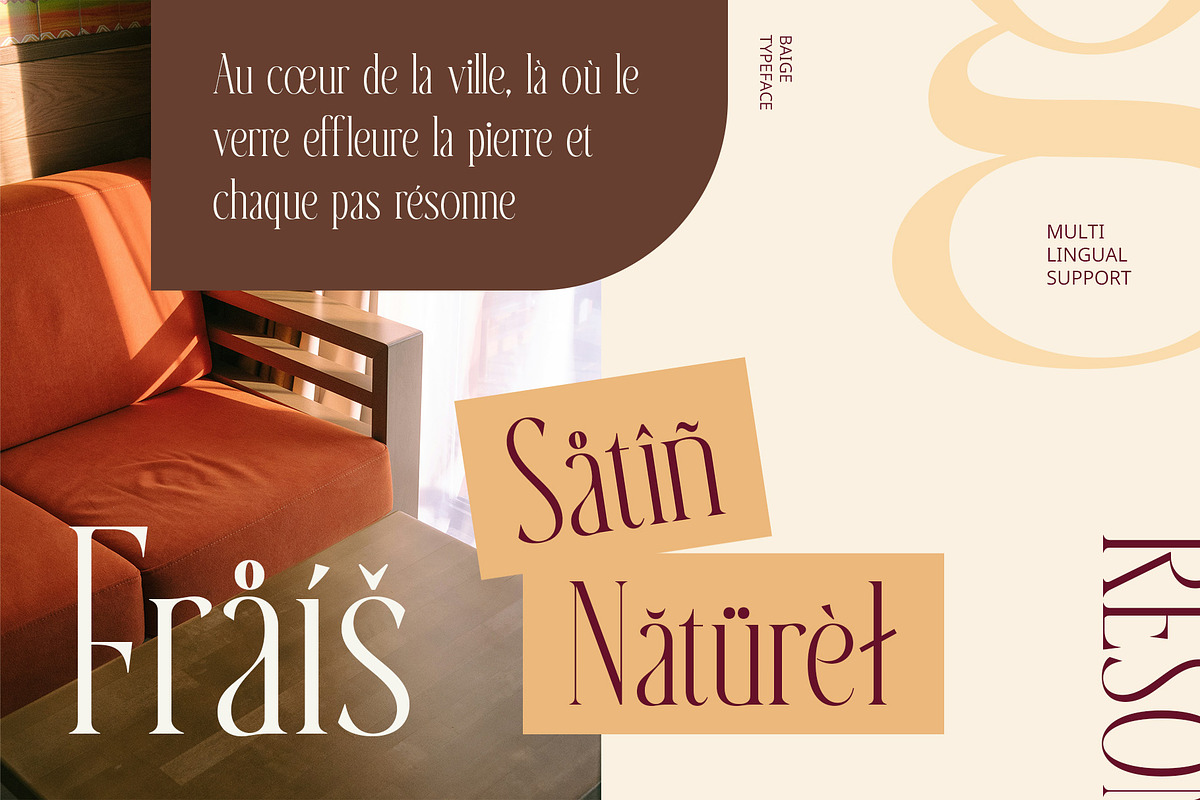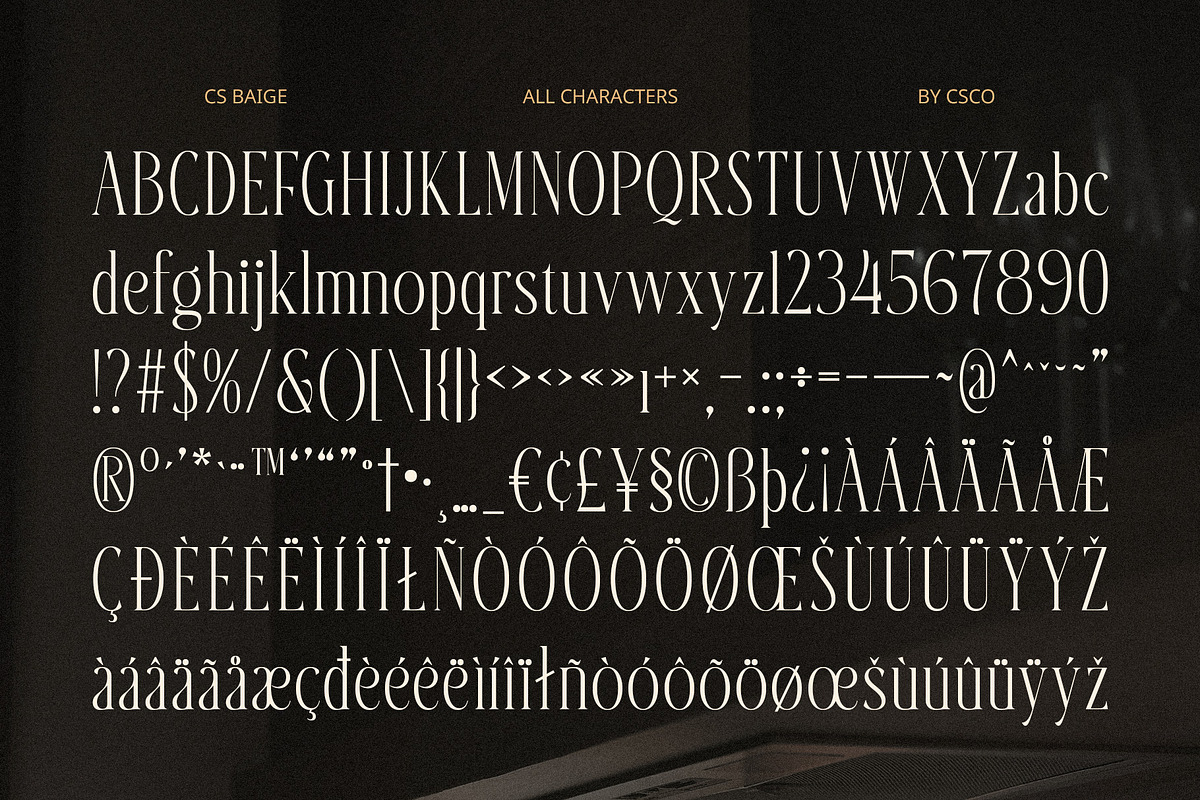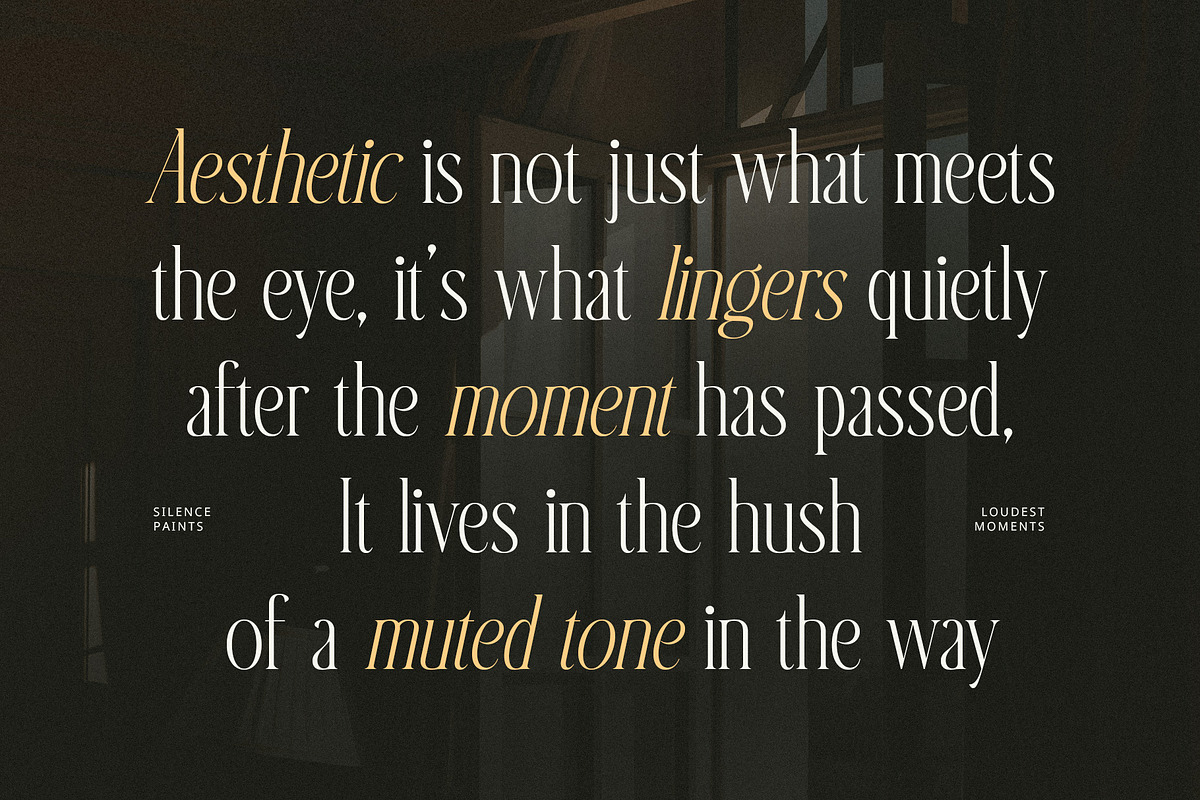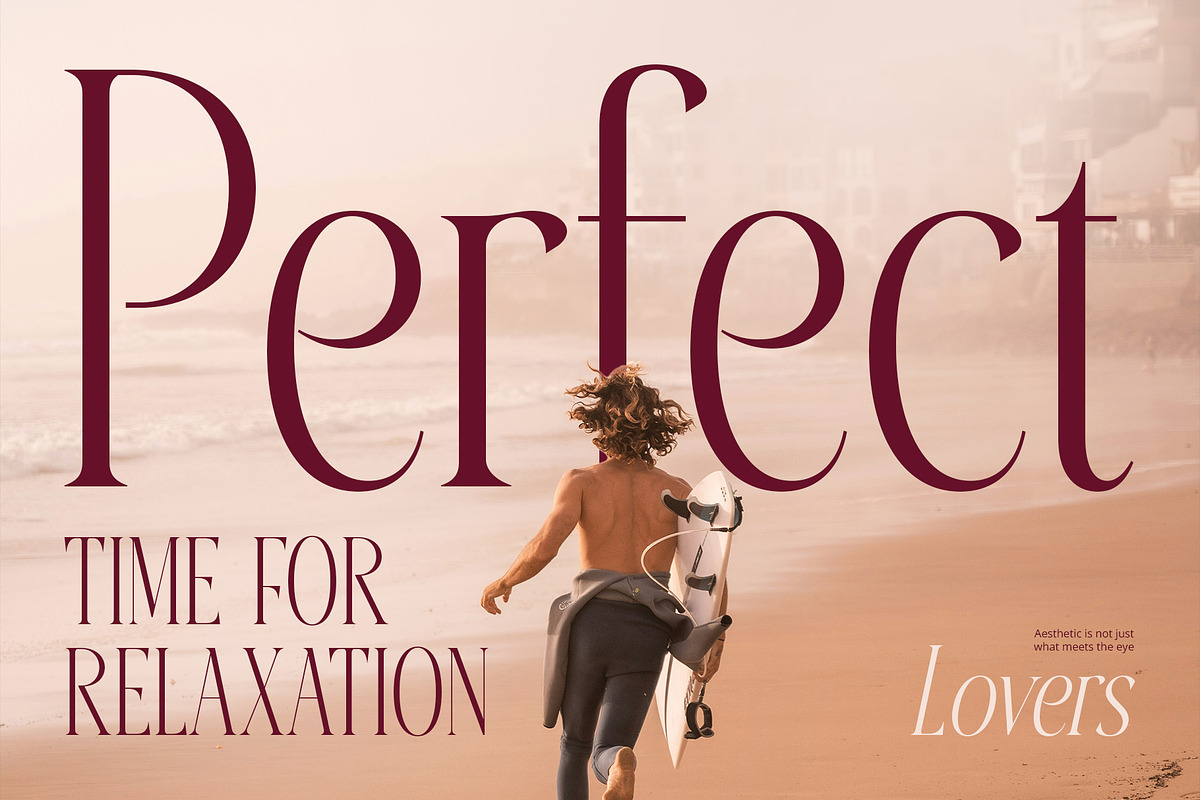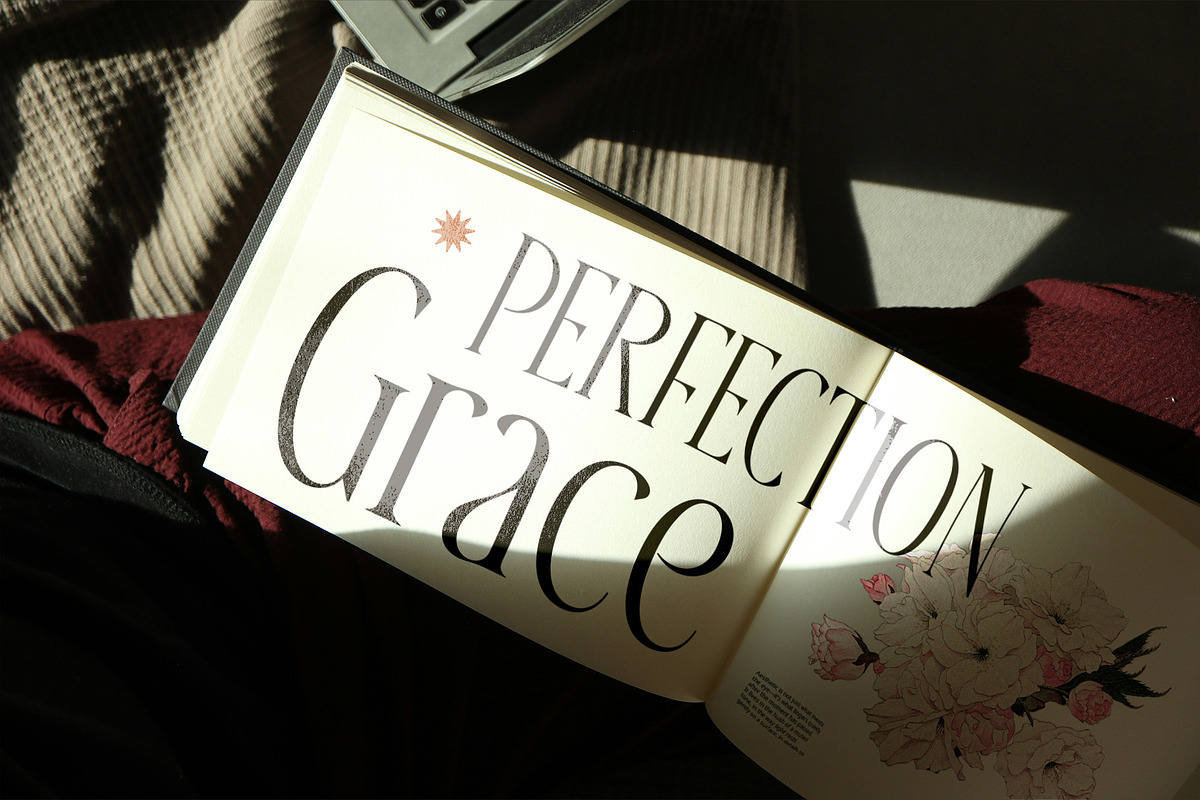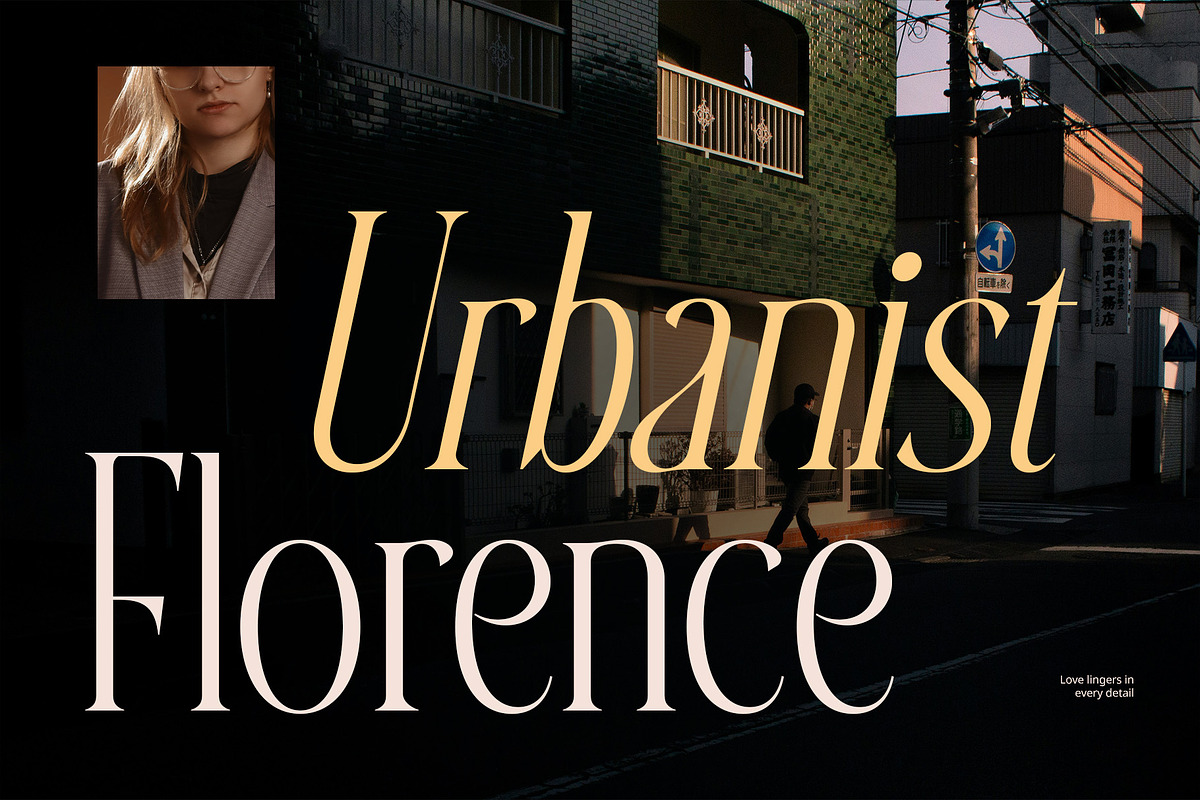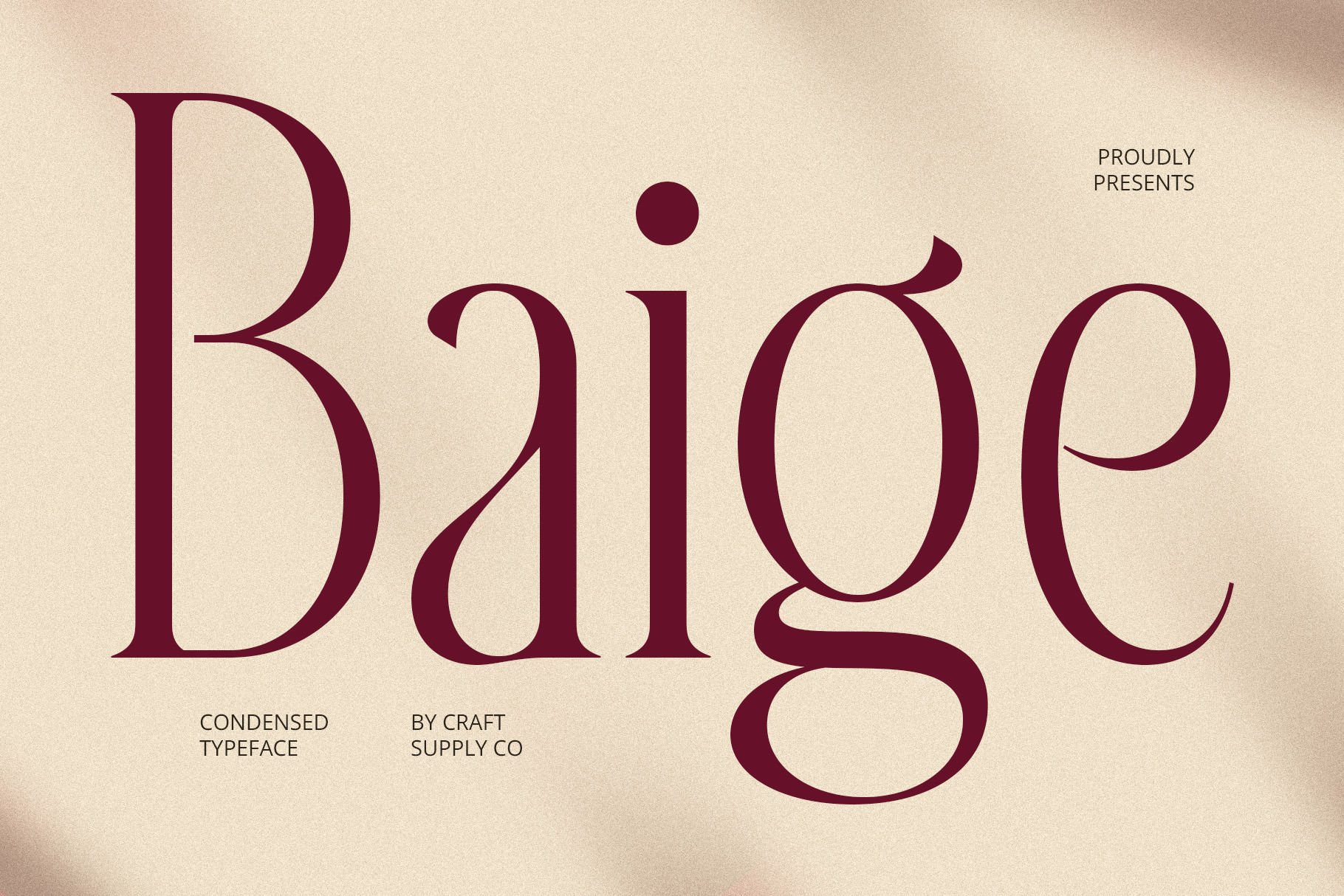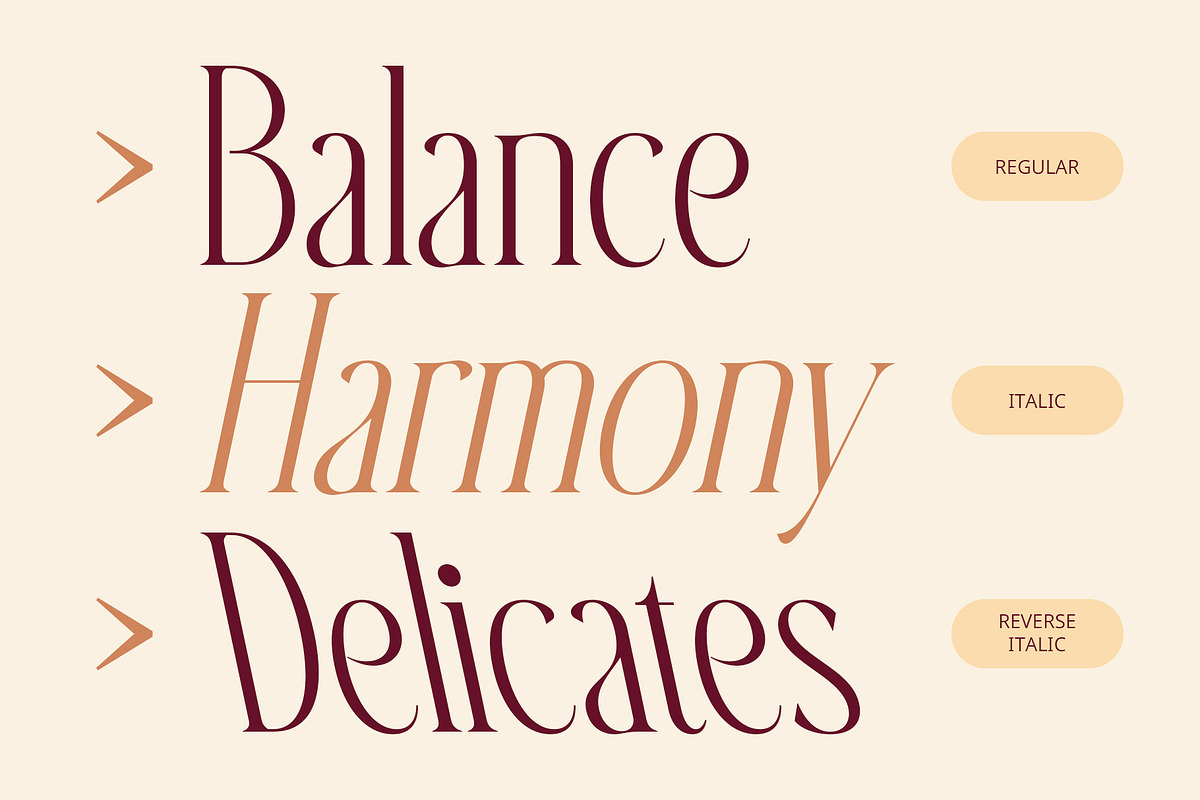
Baige – Condensed Font
Baige Font – Modern Condensed Serif with Elegant Charm
Sophisticated Condensed Serif Design Baige is a modern serif font defined by its tall, condensed letterforms and sleek, elongated serifs. Its refined structure brings a graceful and poised look, while its space-saving proportions offer high versatility across layouts. The font strikes a balance between strong presence and subtlety, making it ideal for headlines, titles, and branding where impactful elegance is needed.
Minimalist Yet Timeless Appeal With its minimalist foundation and classic serif details, Baige delivers an aesthetic that feels both timeless and contemporary. The long, tapered serifs add a stylish flair without overpowering the clean letterforms, making it suitable for luxury-focused designs, editorial spreads, or fashion-forward visuals. It’s an excellent choice for designers seeking a sophisticated yet modern tone.
Perfect for Premium and Elegant Visuals Whether you’re designing a high-end magazine, a boutique brand identity, or refined product packaging, Baige communicates luxury and authority with ease. Its condensed structure allows for flexible use in narrow spaces while maintaining clarity and visual impact. Ideal for editorial work, logos, or formal typographic layouts, Baige elevates any design with its elegant precision and polished charm.
- Baige Regular
- Baige Italic
- Baige Reverse Italic